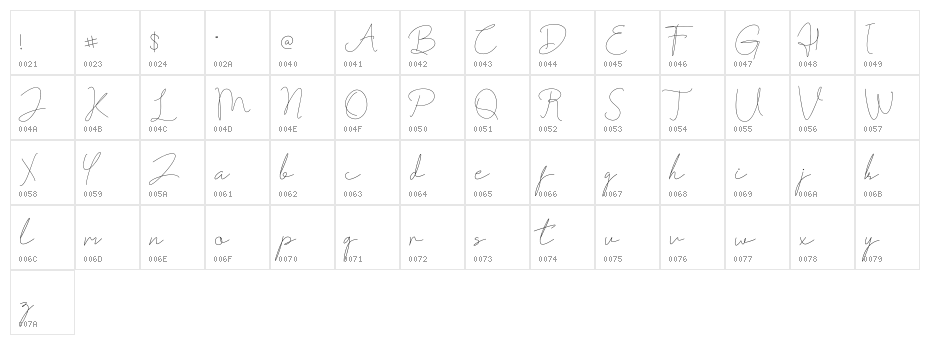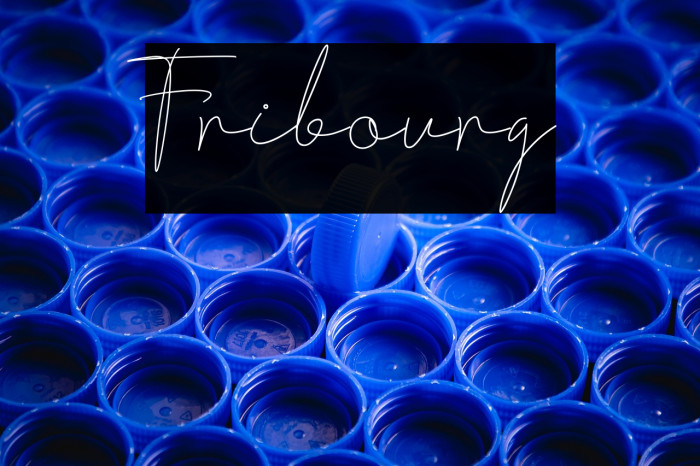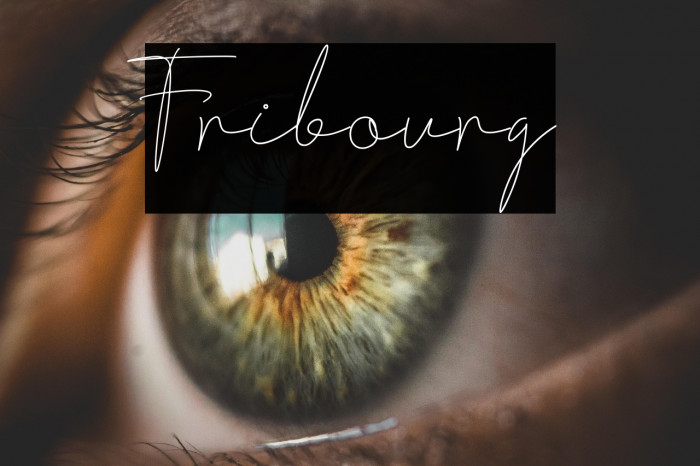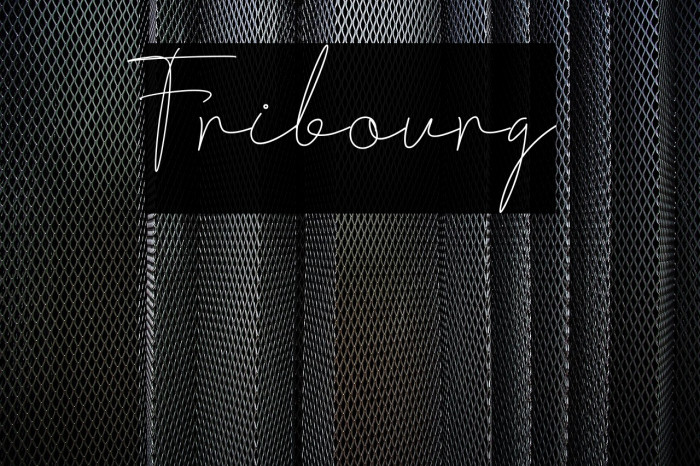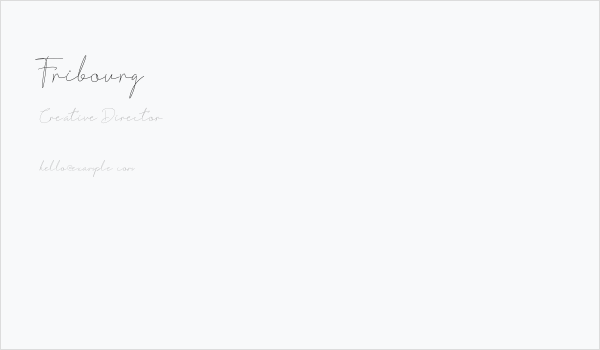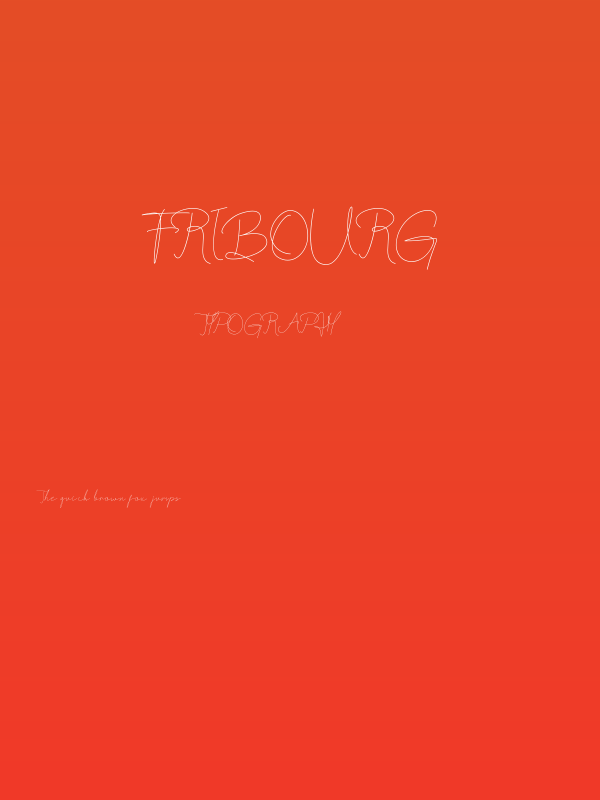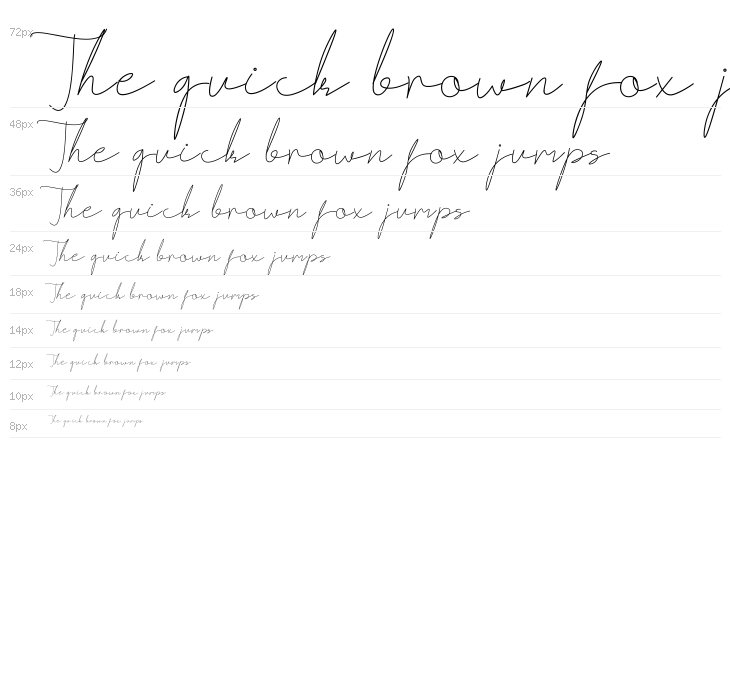
Fribourg Font
Fribourg Description
This font exhibits a flowing, cursive style with elegant, elongated strokes that mimic the fluidity of handwriting. The uppercase letters are characterized by their tall, sweeping lines, while the lowercase letters maintain a consistent, graceful curve. The overall appearance is delicate and sophisticated, with a sense of movement and rhythm. The characters are well-spaced, allowing for readability despite the intricate design. The font includes a full set of uppercase and lowercase letters, numerals, and a selection of special characters, making it versatile for various applications.